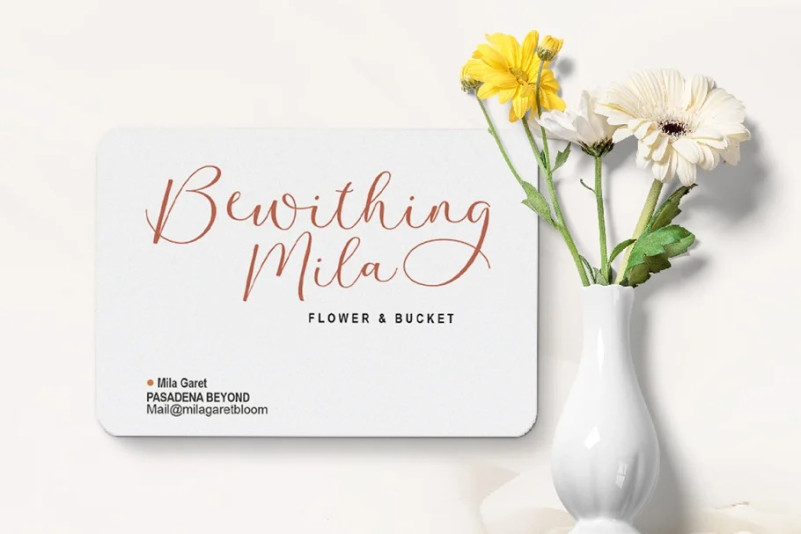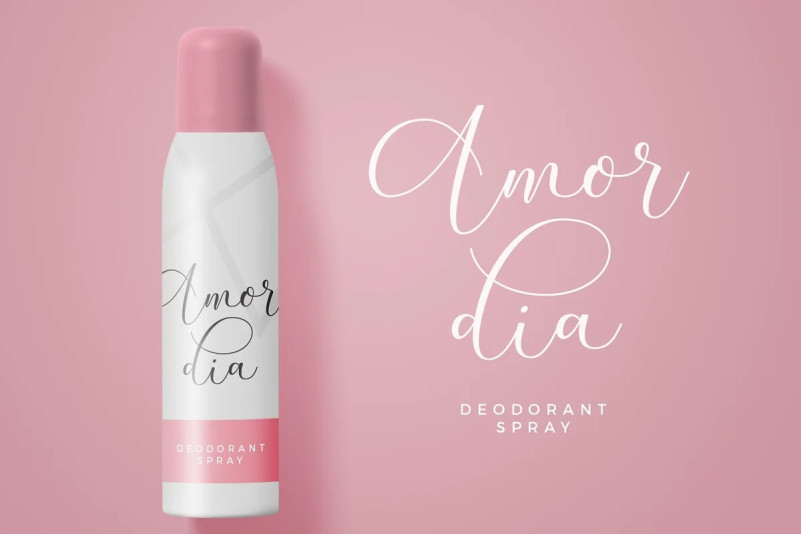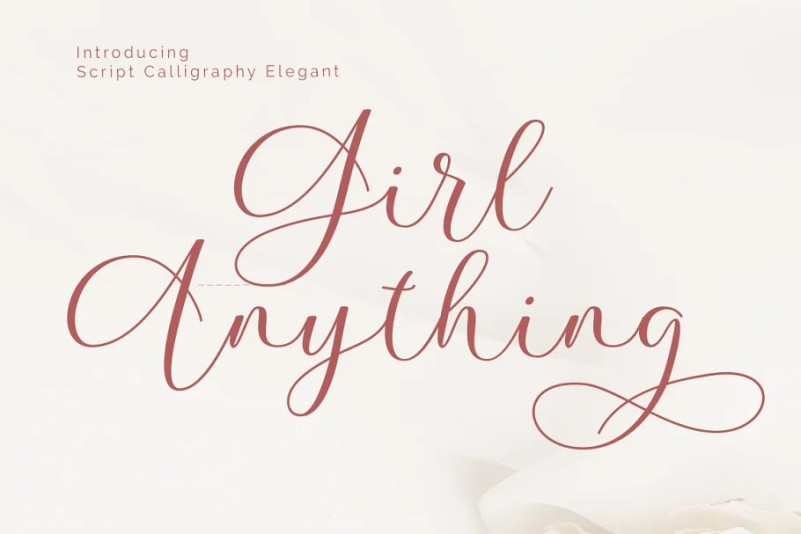
Girl Anything Font
Girl Anything Font is the latest Modern Calligraphy love theme that you can get now! The replacement model for Swirly Love is updated with special glyphs that have been given a combination of fantasy and handwritten ink. This font will look beautiful on all designs, New Year designs, Weddings, branding materials, blog titles, quotes and invitations, business cards.